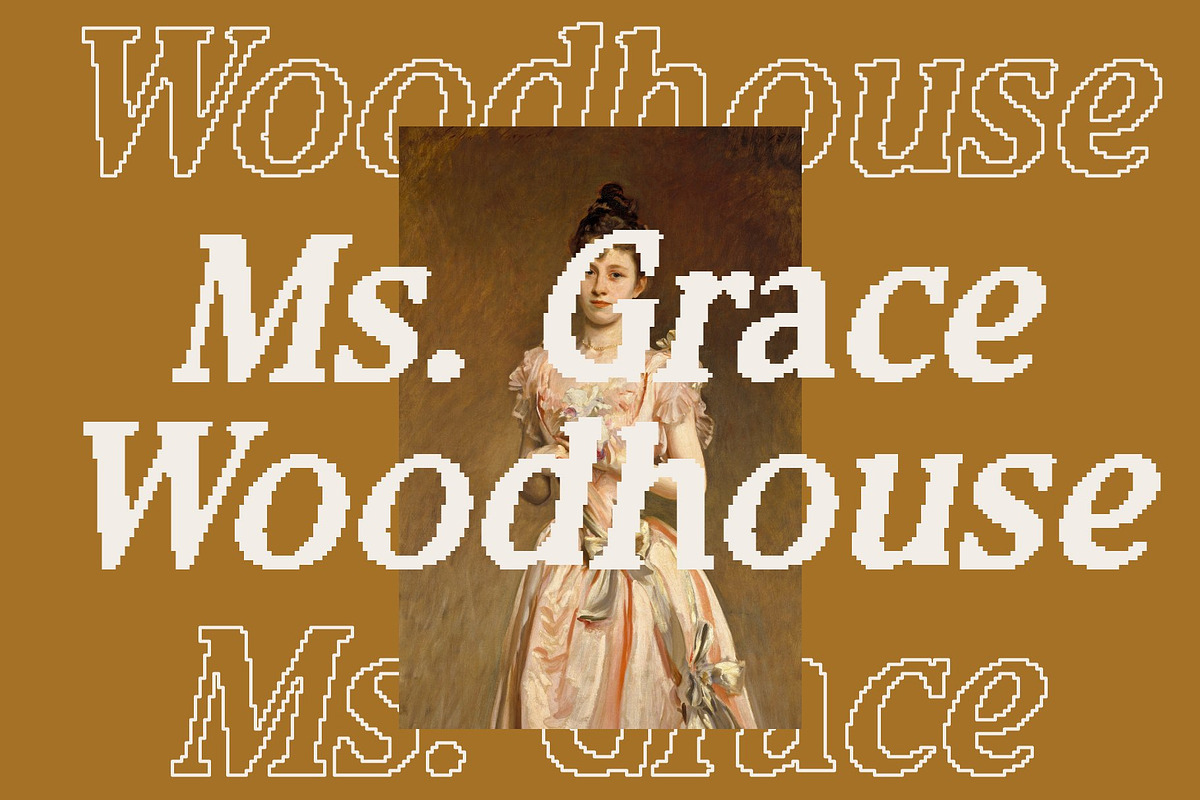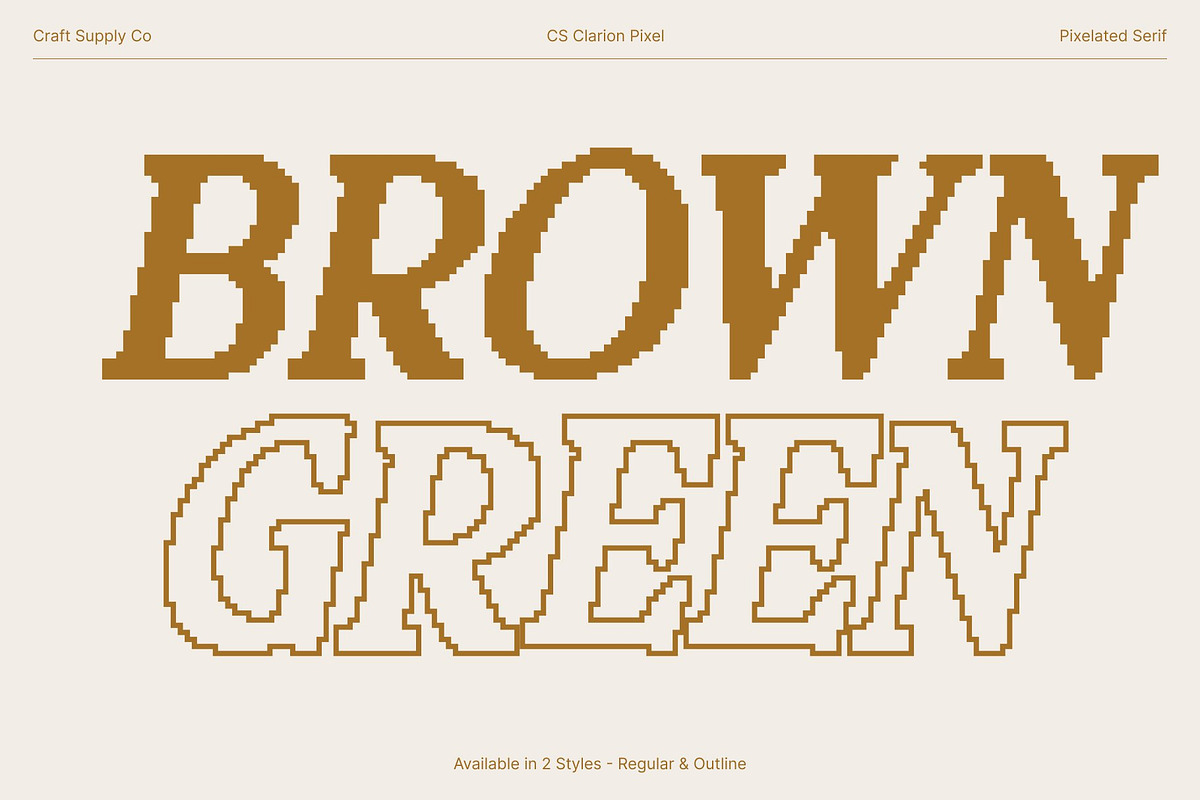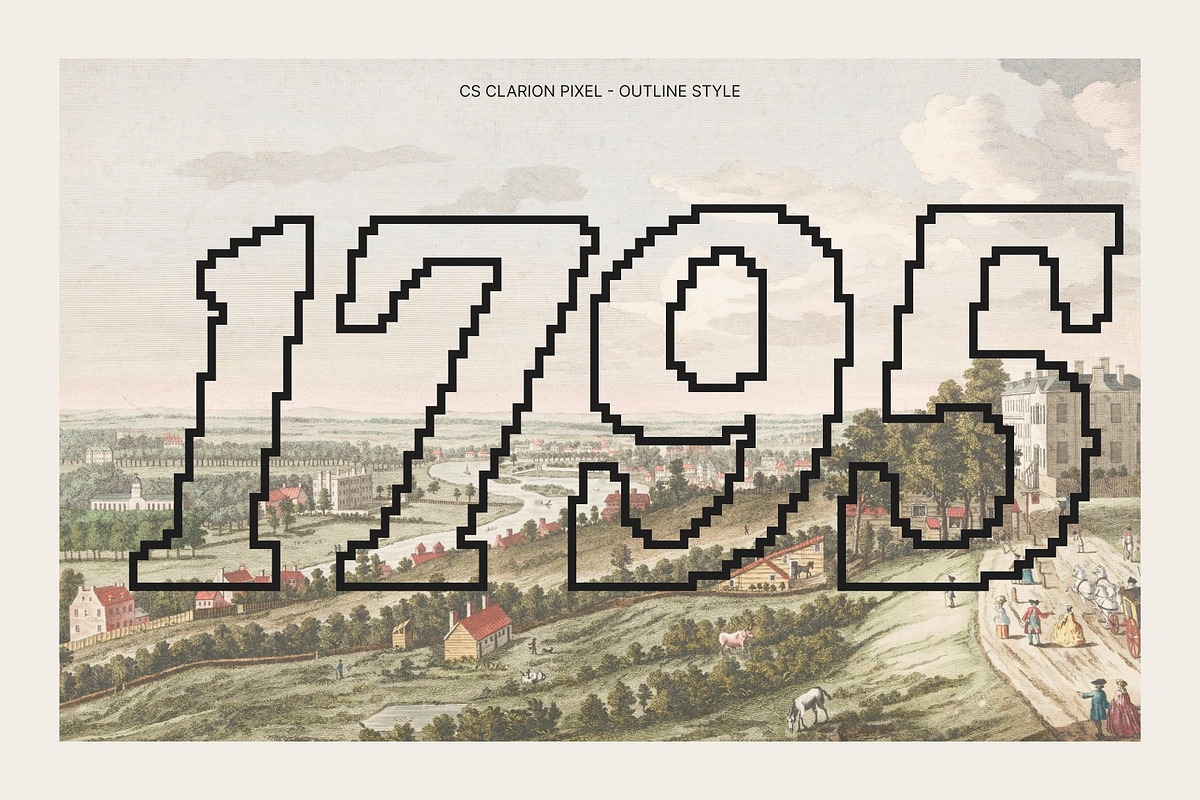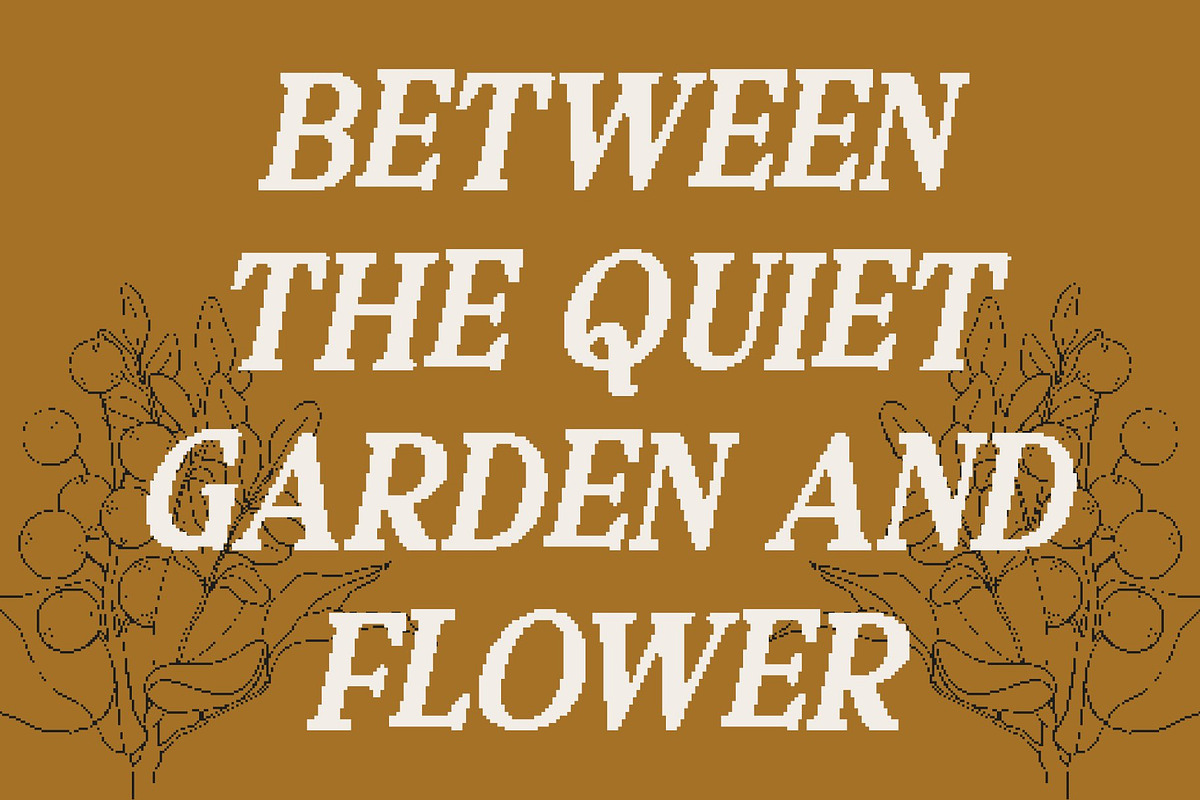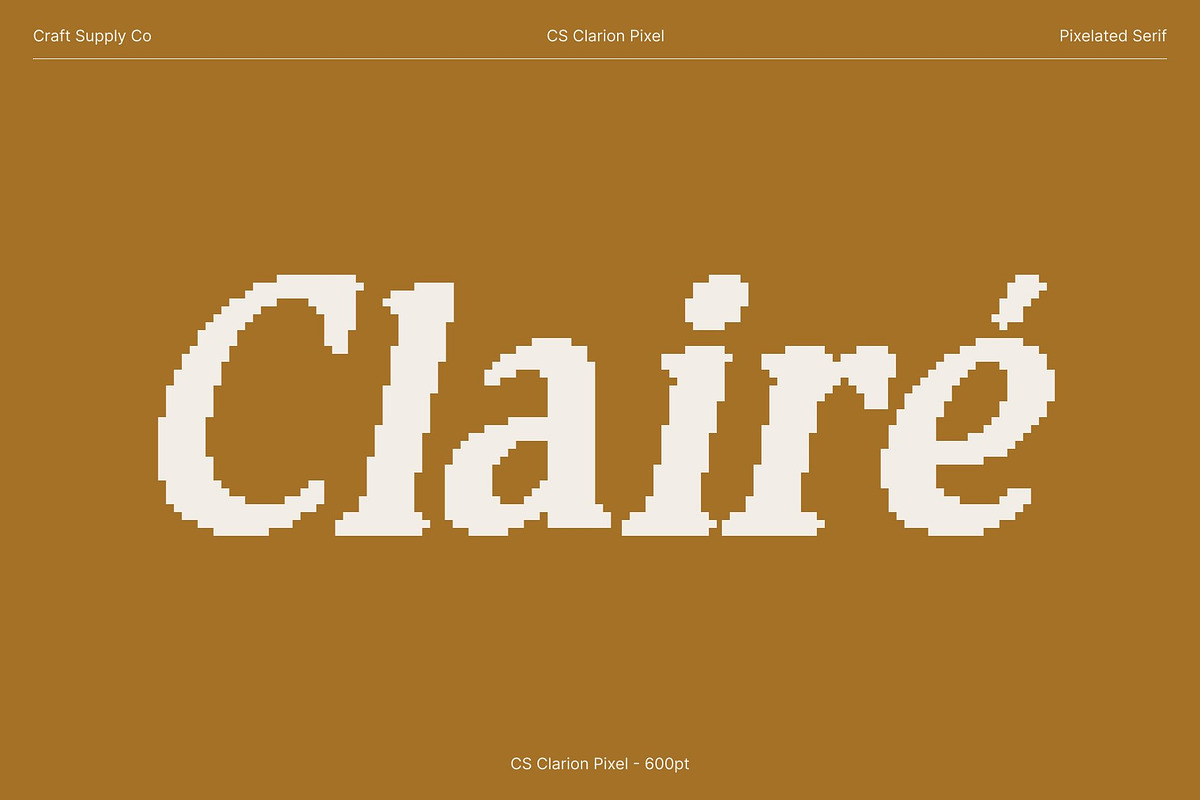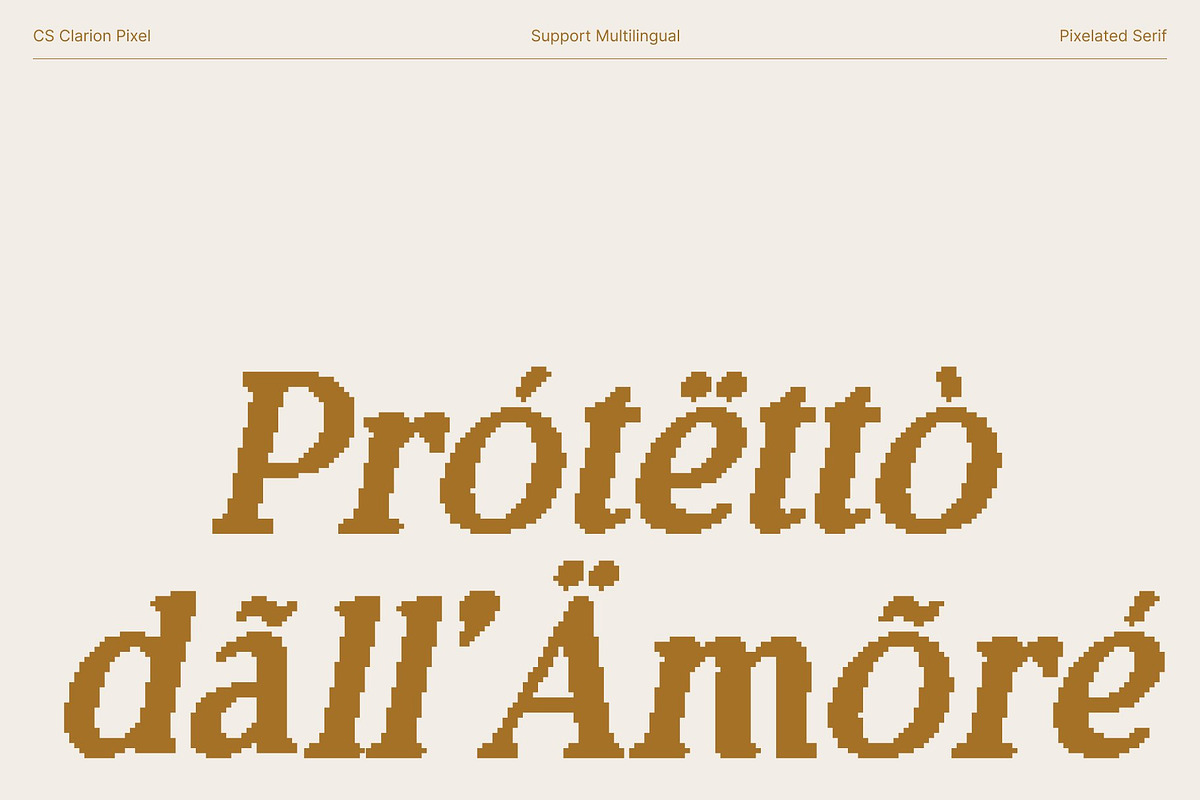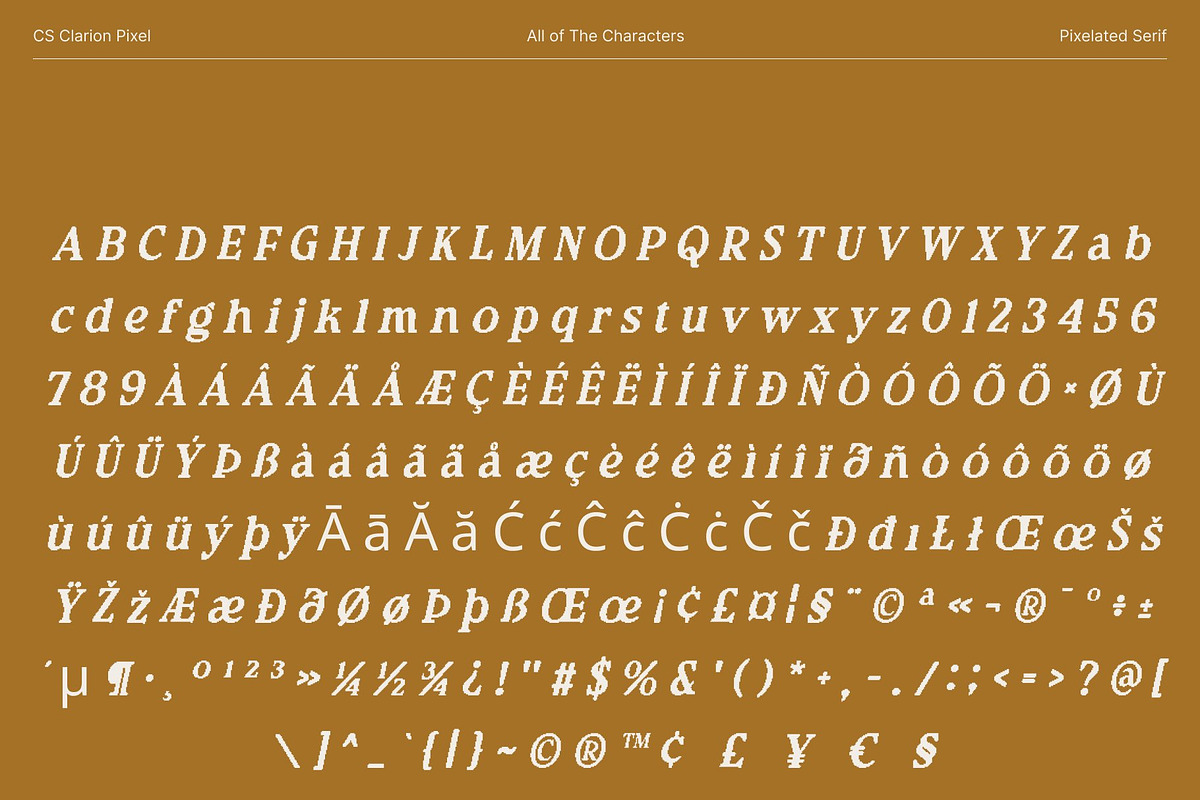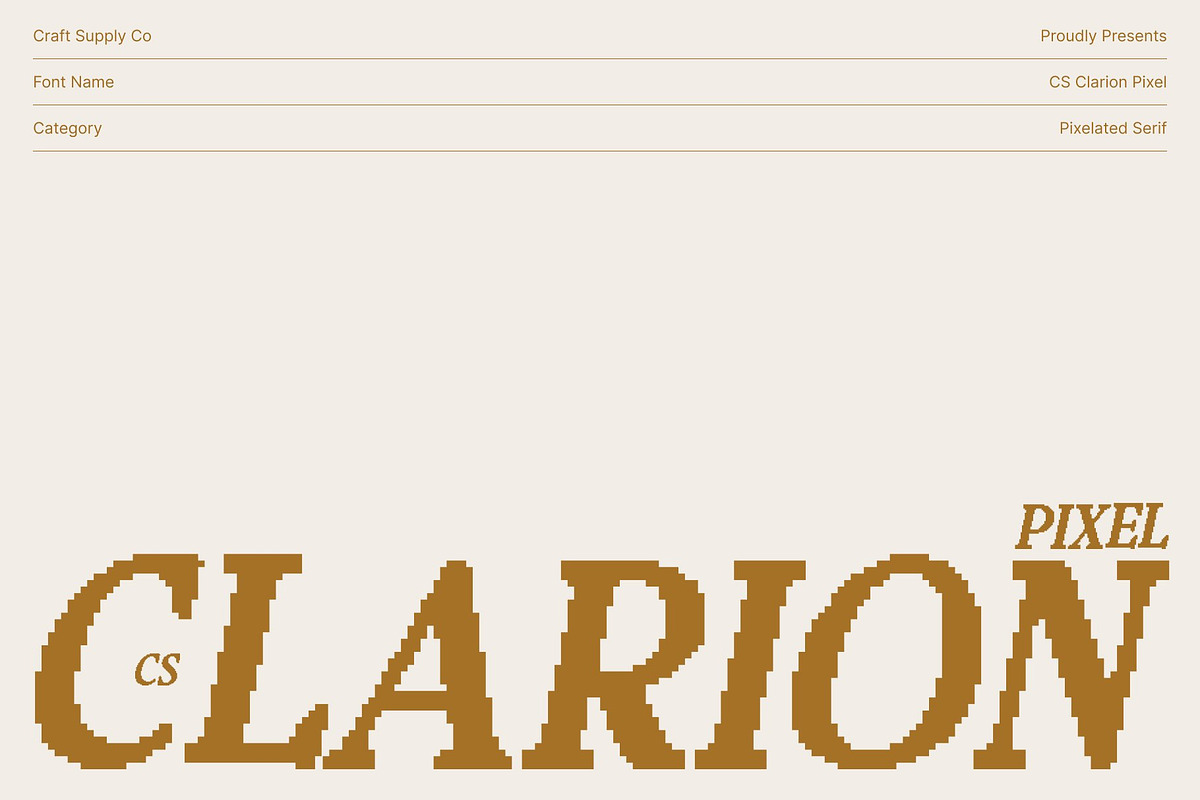
CS Clarion Pixel
CS Clarion Pixel – Modern Sophistication with a Playful Digital Edge
Modern Pixel Serif with Elegant Structure and Playful Details This font is a modern serif font that blends refined sophistication with subtle charm, enhanced by a carefully considered pixel-based structure. While its overall form remains clean and elegant, playful details in select letterforms introduce a relaxed, contemporary character. The pixel influence is understated, adding a modern digital nuance without compromising its editorial elegance.
Smooth Pixel Lines for a Warm, Approachable Impression Smooth curves and gentle transitions define the flow of this font. Aligned to a refined pixel grid, each stroke feels warm, balanced, and inviting. This harmony between softness and structure creates a serif font that feels both luxurious and approachable, maintaining excellent readability across layouts.
Artistic Flair with Modern Simplicity This font captures the essence of modern luxury simple, graceful, and quietly confident. Its artistic touches and digital precision allow the font to stand out naturally, making it ideal for designers who want personality without excess. The result is a serif that feels expressive yet controlled.
Perfect for Luxury Branding, Editorials, and Digital Publishing Designed for high-end branding, posters, editorial layouts, and refined digital content, this font adapts effortlessly to both headlines and body text. Its blend of elegance, playfulness, and subtle pixel detail delivers a sophisticated, stylish, and creatively modern impression.